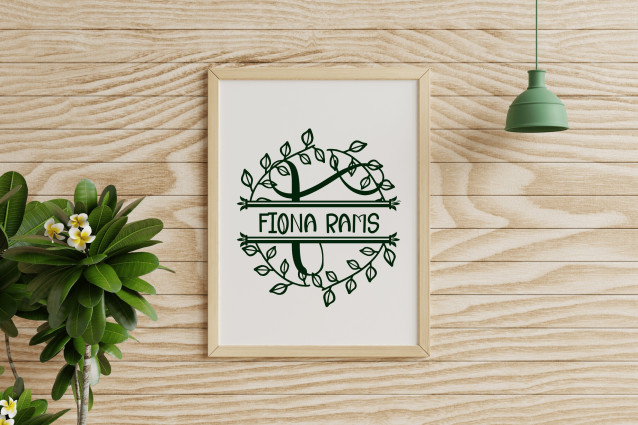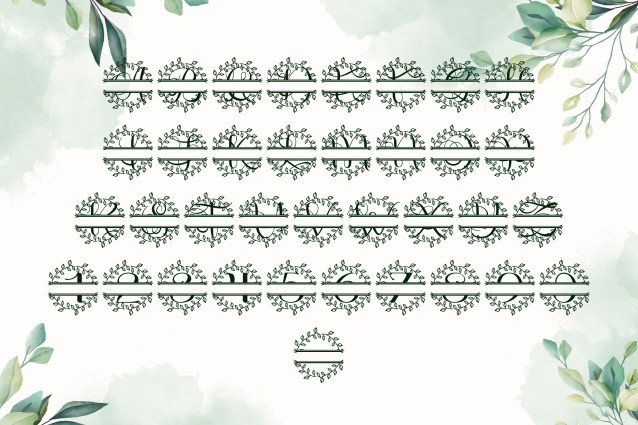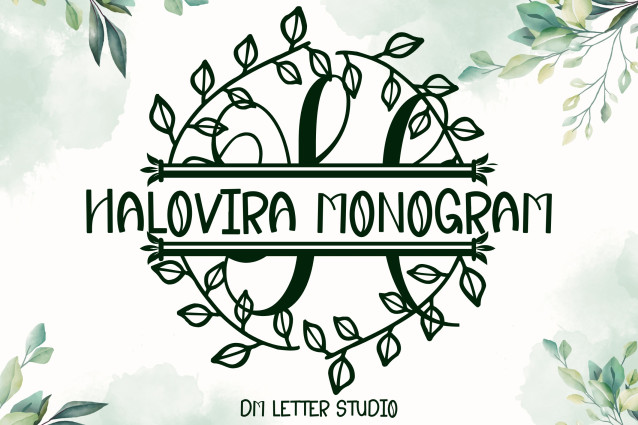
Halovira Split Font
Halovira Split Font is a beautifully refined serif split monogram font featuring graceful floral flourishes. With a horizontal divide in each uppercase letter, this typeface offers an elegant space for names, initials, or meaningful phrases—perfect for wedding signage, DIY gifts, and personalized crafts. The botanical embellishments add a romantic and timeless touch to every design.